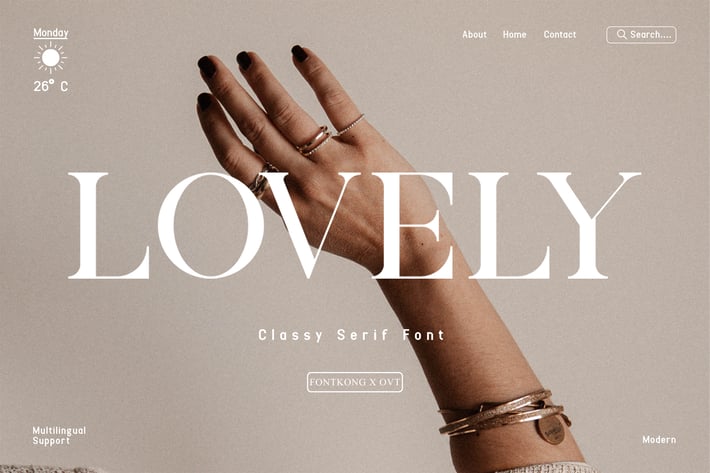
Lovely - Classy Serif Font
Introducing "Lovely," a classy serif font that embodies timeless elegance and pure sophistication. Perfect for graphic designers, typographers, and creatives seeking a refined and elegant typeface, Lovely offers a classic design that enhances any project with its graceful and polished aesthetic.
Ideal for branding, editorial layouts, invitations, packaging, and logos, Lovely’s meticulously crafted characters provide a sophisticated and luxurious visual appeal. Each letter is designed to ensure clarity and elegance, making your designs both captivating and memorable.
The "Lovely" font includes a complete set of uppercase and lowercase letters, numbers, punctuation marks, and special characters. This versatile set ensures seamless integration into various design projects, from high-end branding to stylish editorial content.
Elevate your designs with Lovely, the classy serif font that brings timeless elegance and pure sophistication to every project.
Introducing "Lovely," a classy serif font that embodies timeless elegance and pure sophistication. Perfect for graphic designers, typographers, and creatives seeking a refined and elegant typeface, Lovely offers a classic design that enhances any project with its graceful and polished aesthetic.
Ideal for branding, editorial layouts, invitations, packaging, and logos, Lovely’s meticulously crafted characters provide a sophisticated and luxurious visual appeal. Each letter is designed to ensure clarity and elegance, making your designs both captivating and memorable.
The "Lovely" font includes a complete set of uppercase and lowercase letters, numbers, punctuation marks, and special characters. This versatile set ensures seamless integration into various design projects, from high-end branding to stylish editorial content.
Elevate your designs with Lovely, the classy serif font that brings timeless elegance and pure sophistication to every project.